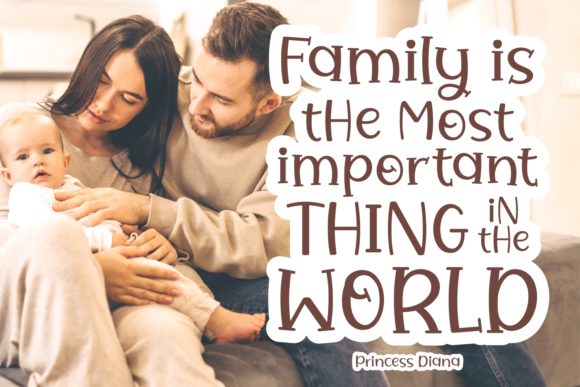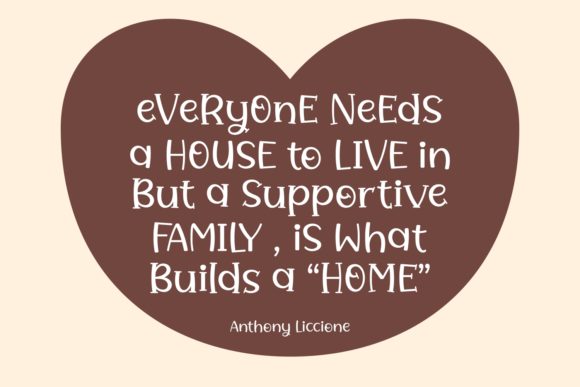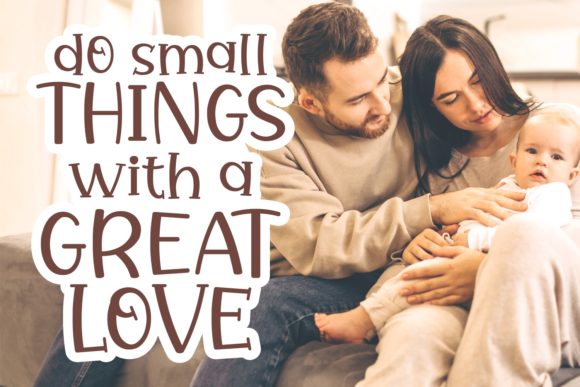
Introduction to Joyful Family Font
Joyful Family is an incredibly unique display font.
Key Features of Joyful Family Font
Why Choose Joyful Family Font?
Joyful Family Font offers exceptional quality and versatility, making it a valuable addition to your design toolkit. Whether you’re creating for personal projects or commercial use, Joyful Family Font delivers professional results.